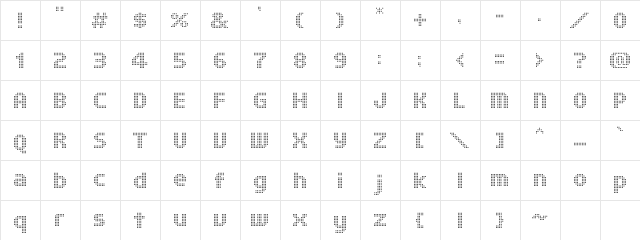
Fairfax Six Square
Design Context for Fairfax Six Typeface
Fairfax Six takes a measured approach to typography — its balanced proportions and neutral character make it a reliable workhorse for both digital and print work.